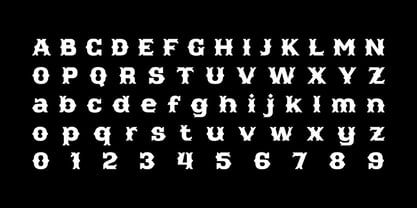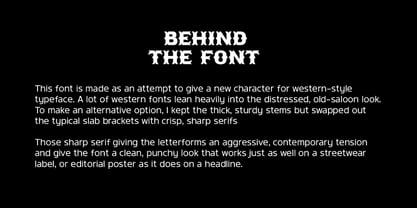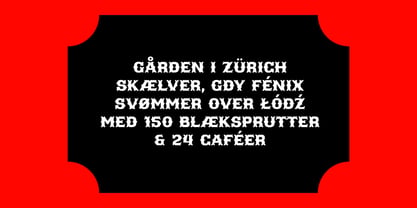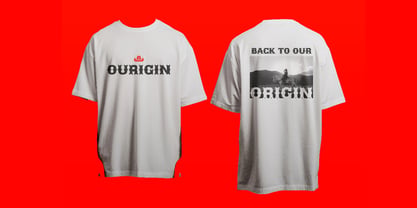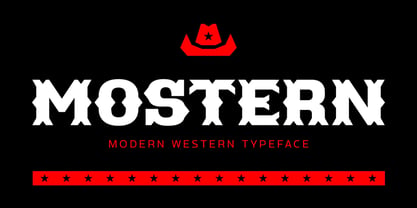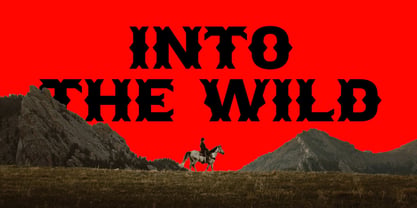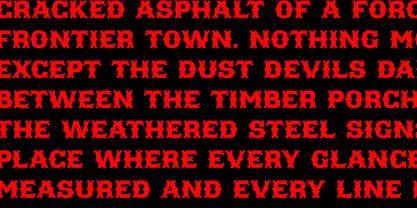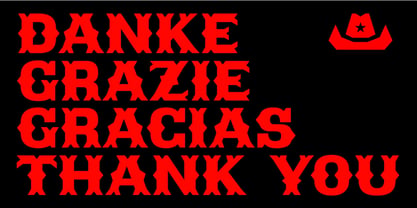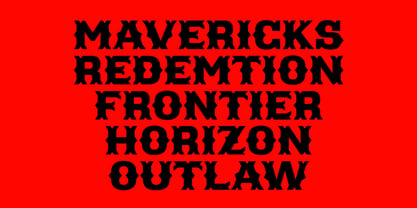
Mostern
by Habitype
The Mostern Font Family was designed by Fahrul Saputra and published by Habitype. Mostern contains 1 styles. More about this family
This font is made as an attempt to give a new character for western-style typeface. A lot of western fonts lean heavily into the distressed, old-saloon look. To make an alternative option, I kept the thick, sturdy stems but swapped out the typical slab brackets with crisp, sharp serifs
Those sharp serif giving the letterforms an aggressive, contemporary tension and give the font a clean, punchy look that works just as well on a streetwear label, or editorial poster as it does on a headline.
Designers: Fahrul Saputra
Foundry: Habitype